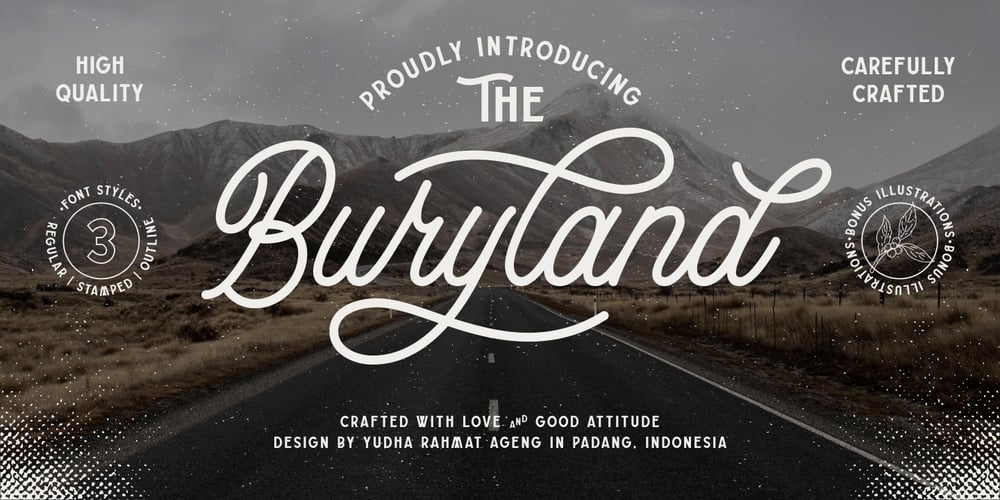
Buryland
Buryland font
Buryland Font Family was designed by Yudha Rahmat Ageng and published by YdhraStudio. Buryland contains 9 styles and family package options. Buryland Font is Handmade Script, Sans, Serif inspired by Retro and Modern hand lettering style, so you can use this font into any style of your design. Buryland Font has three styles for each font, Regular, Stamped, and Outline. Buryland Font also has a standard Multilingual Support. With bonus illustration in this package, this fonts are great for Logotype, Branding Design, Logo Design, Digital Lettering Arts, Instagram Design, T-Shirt/Apparel, Badge, Packaging, Poster, Magazine, Book Cover, Quotes, Signs, Advertising Design, and any design needs. Buryland Font Features : – Upper and Lowercase Standard Characters, Punctuation, Numerals – OpenType Features such as Standard Ligatures, Discretionary Ligatures and Stylistic Set (ss01 – ss10) – PUA Encoded Characters – Fully accessible without additional design software. – Includes a range of multilingual characters. You can access all those alternate characters by using a program that supports OpenType features such as Adobe Illustrator CS, Adobe Indesign & CorelDraw X6-X7 or higher. Guides to access all alternates glyphs : http://adobe.ly/1m1fn4Y Mix and match the alternate characters to add an attractive message to your design. Need help? Please, Feel free to contact me by e-mail yyudhara@gmail.com for any question about my font, Extended License document and more. Good Luck and Have fun ! YdhraStudio